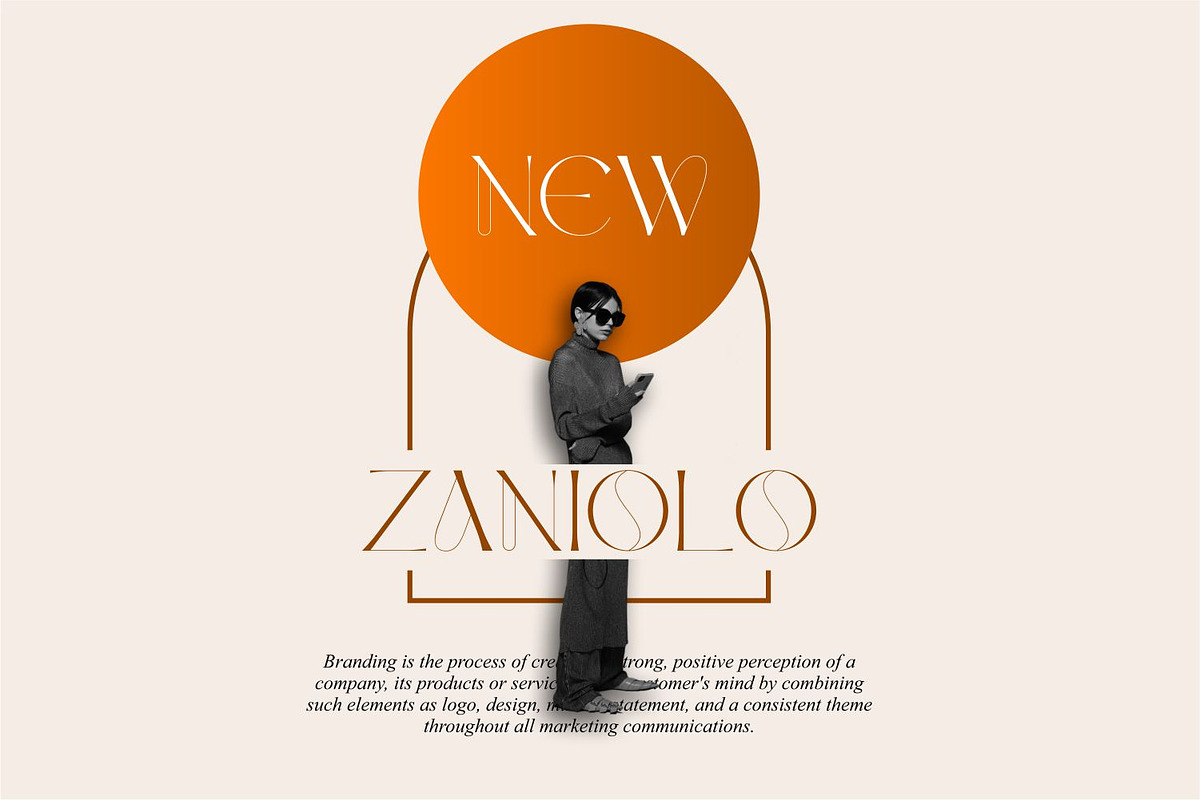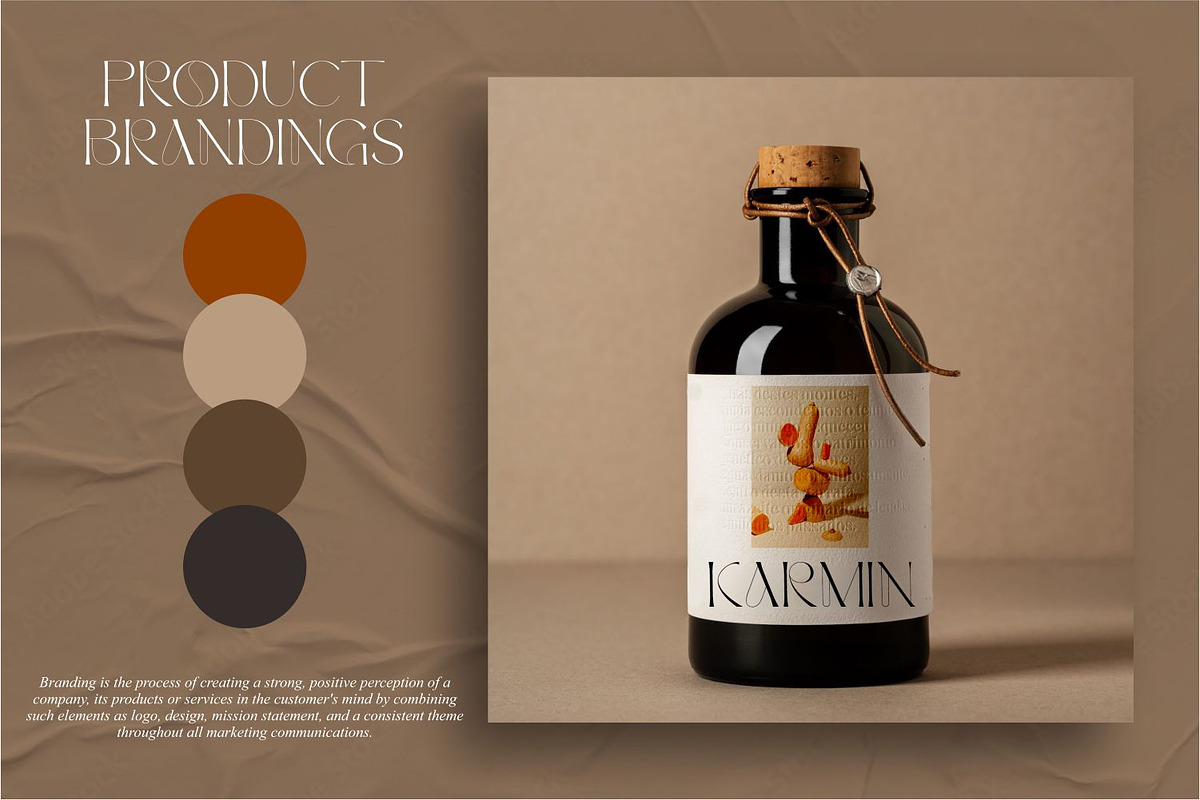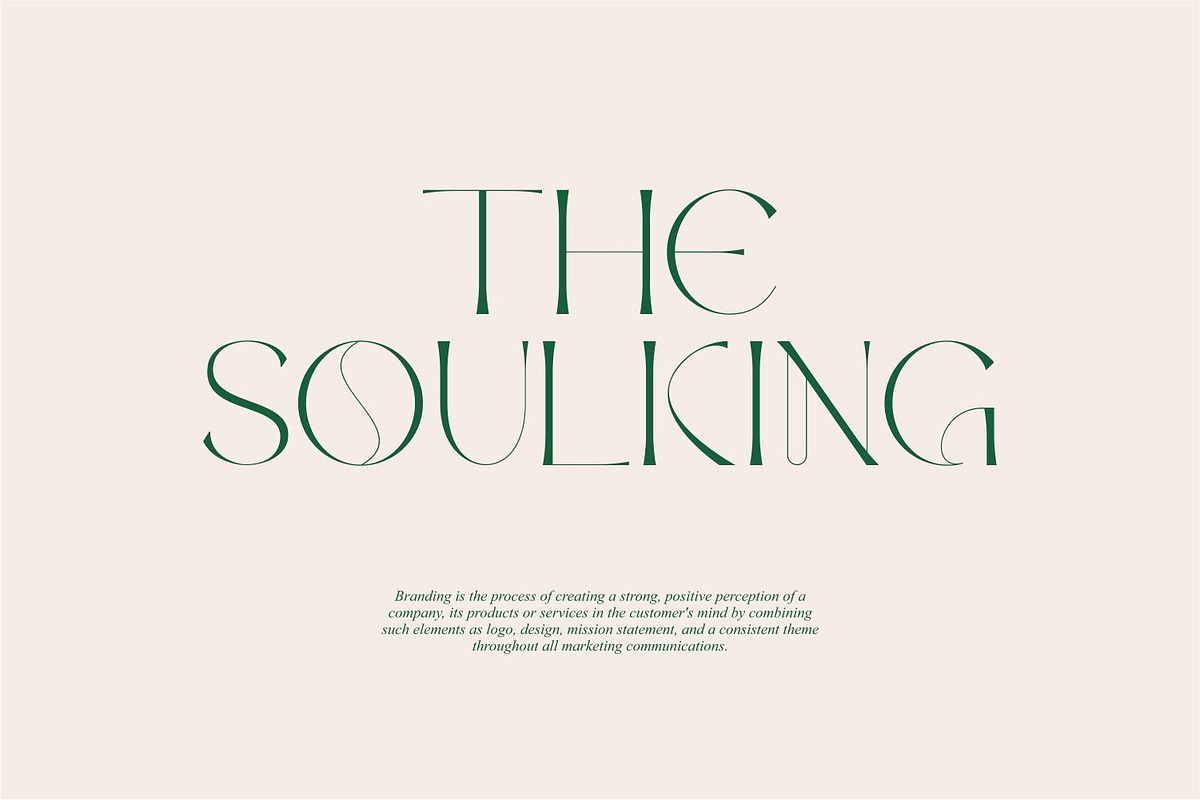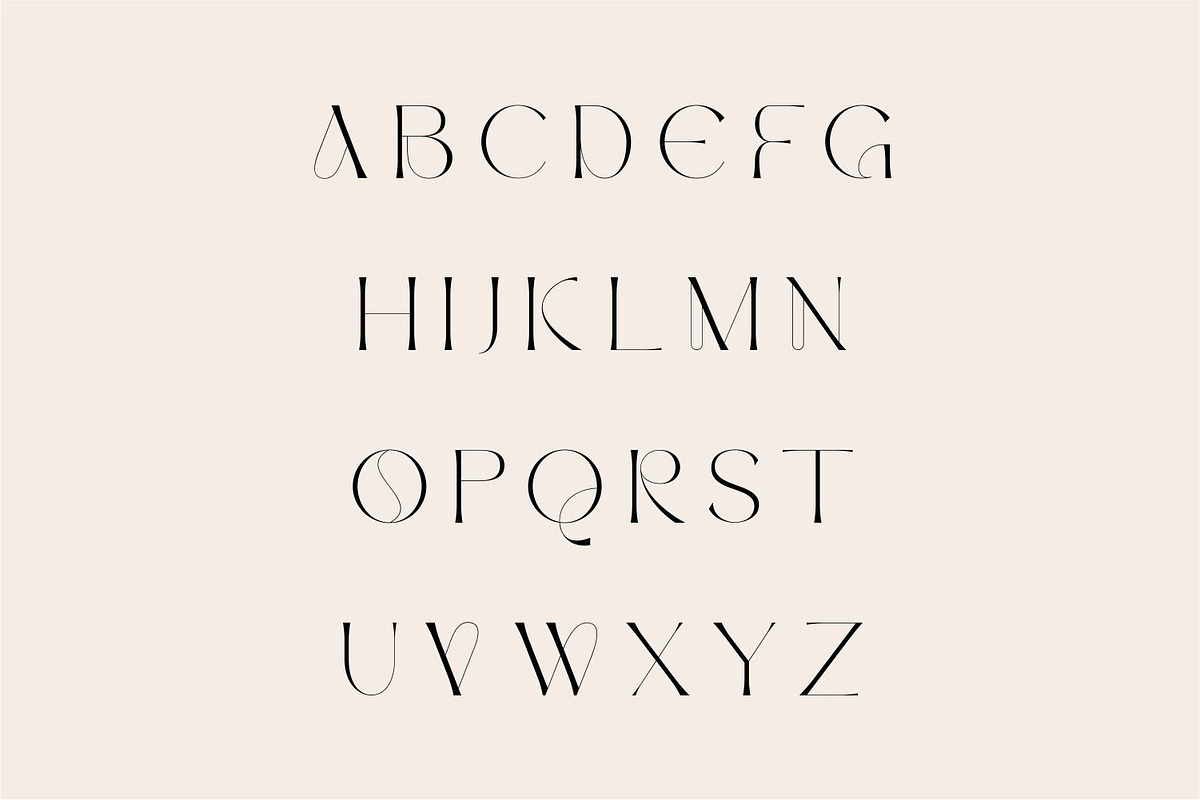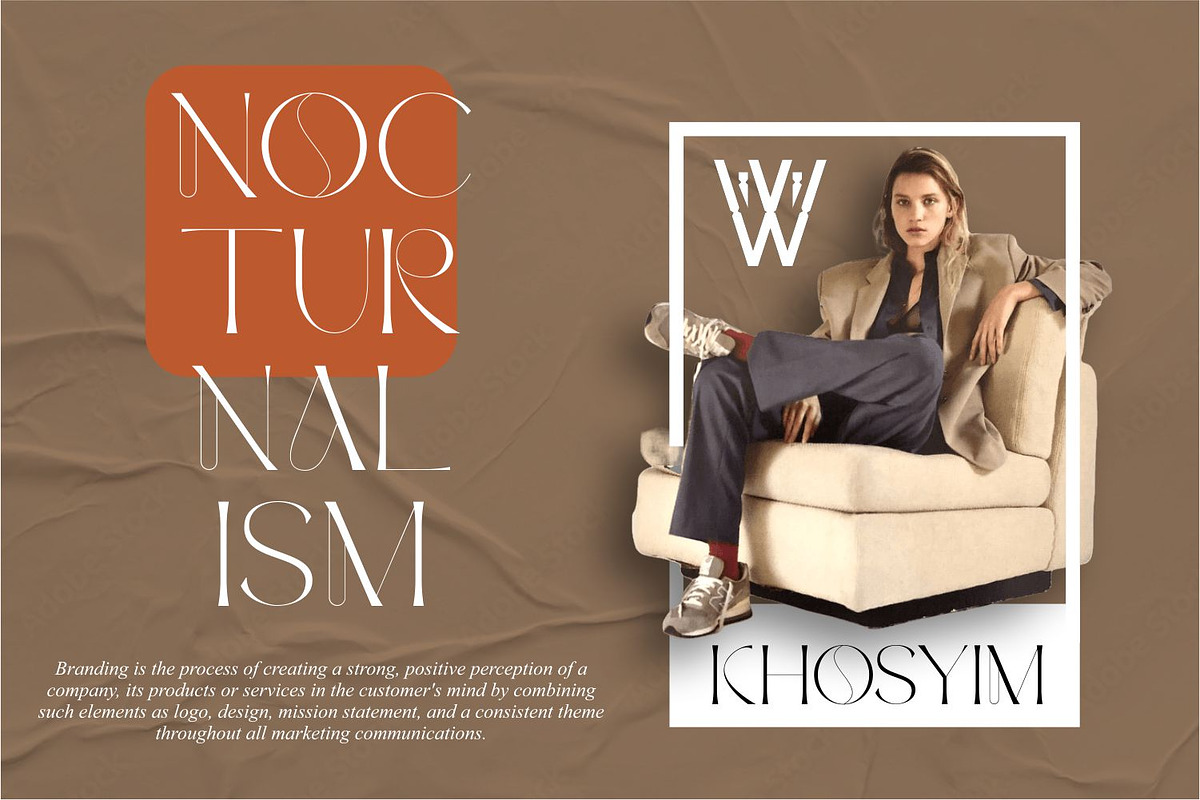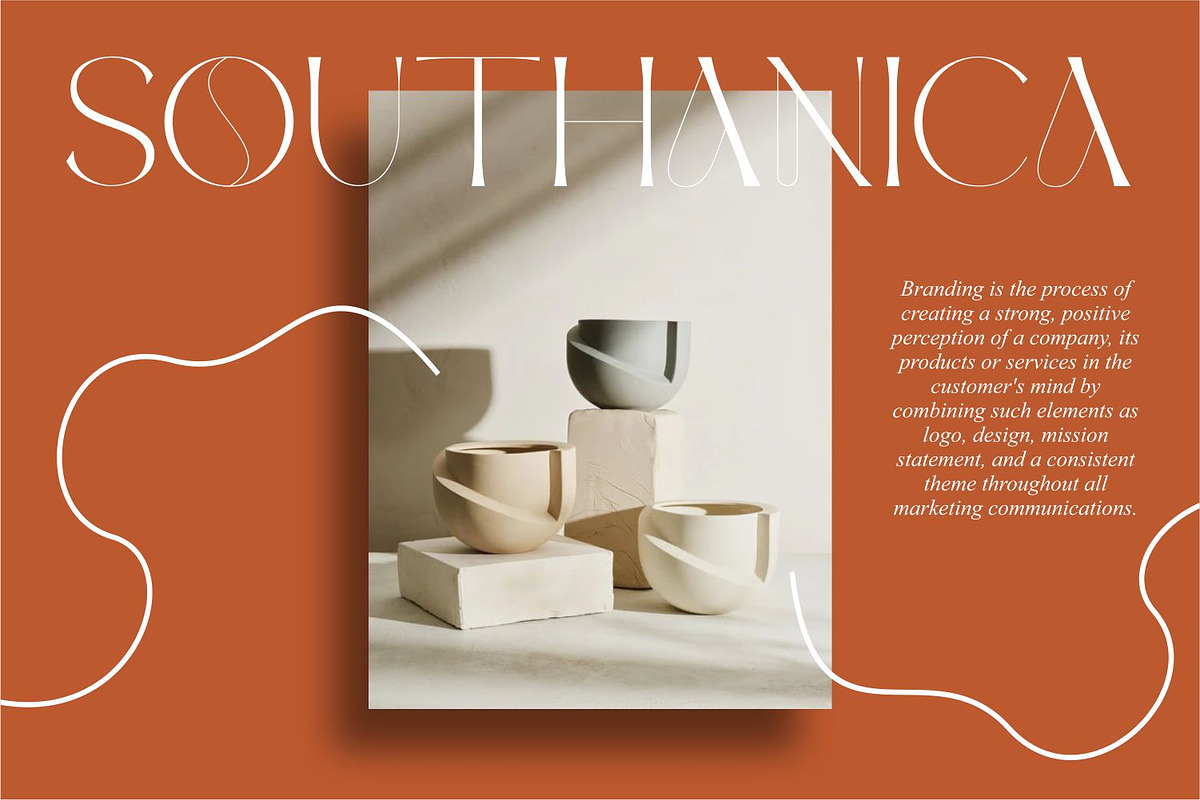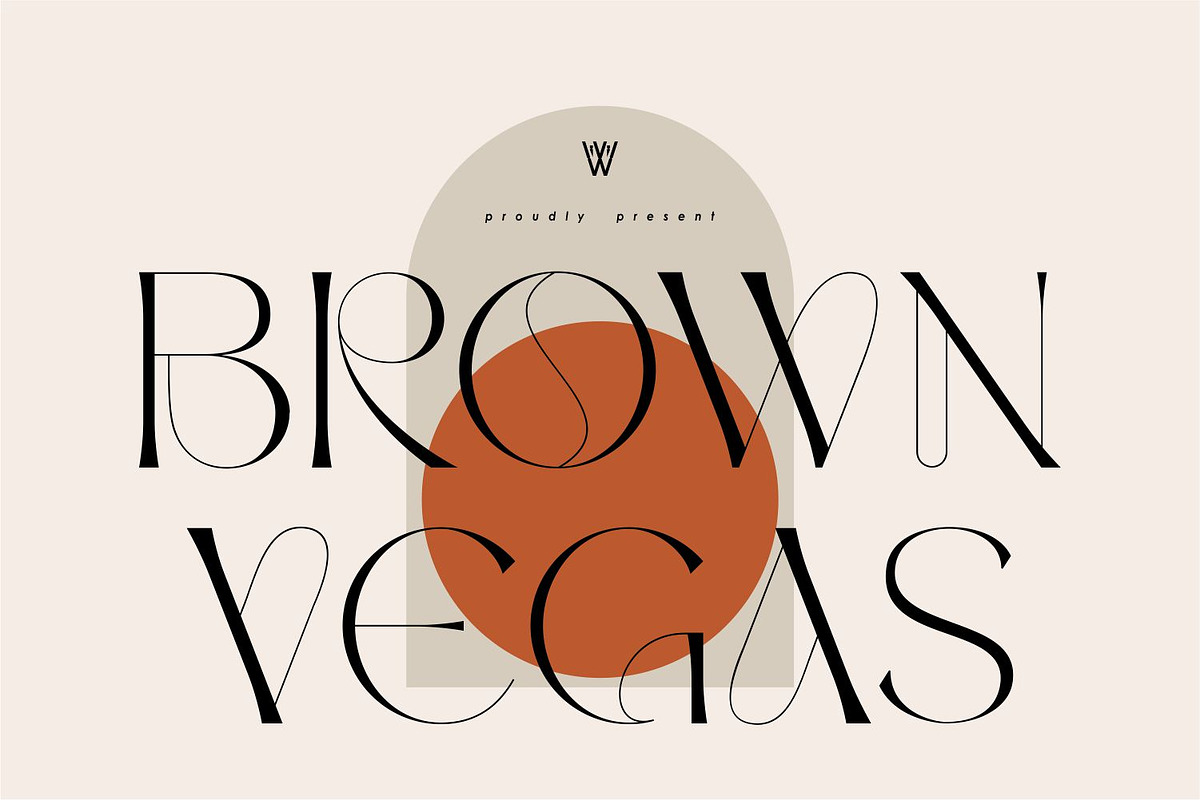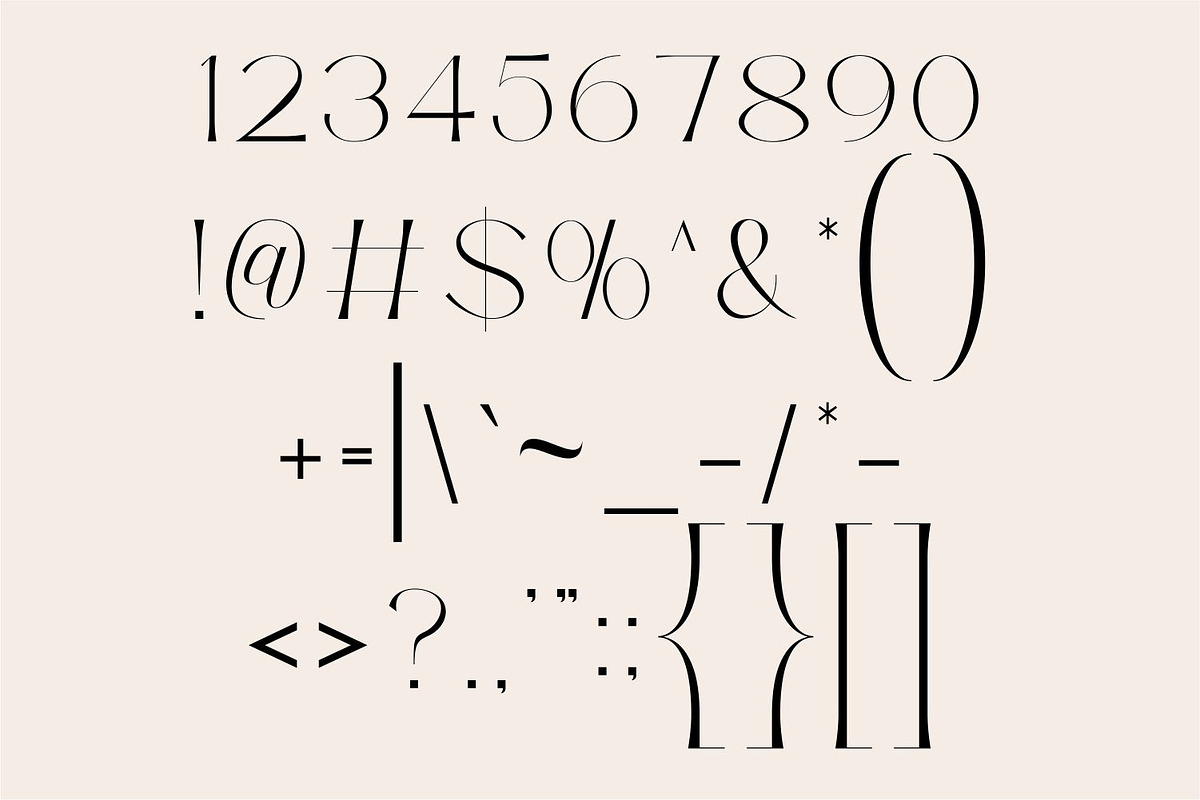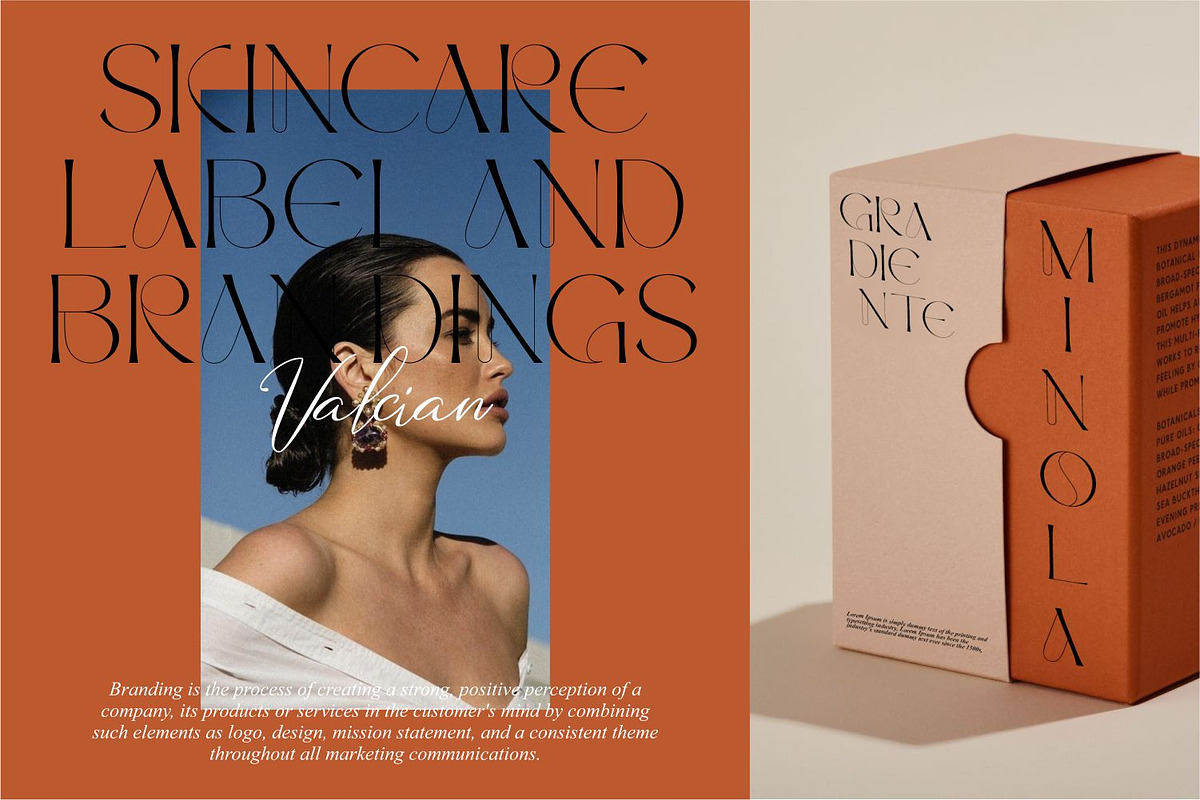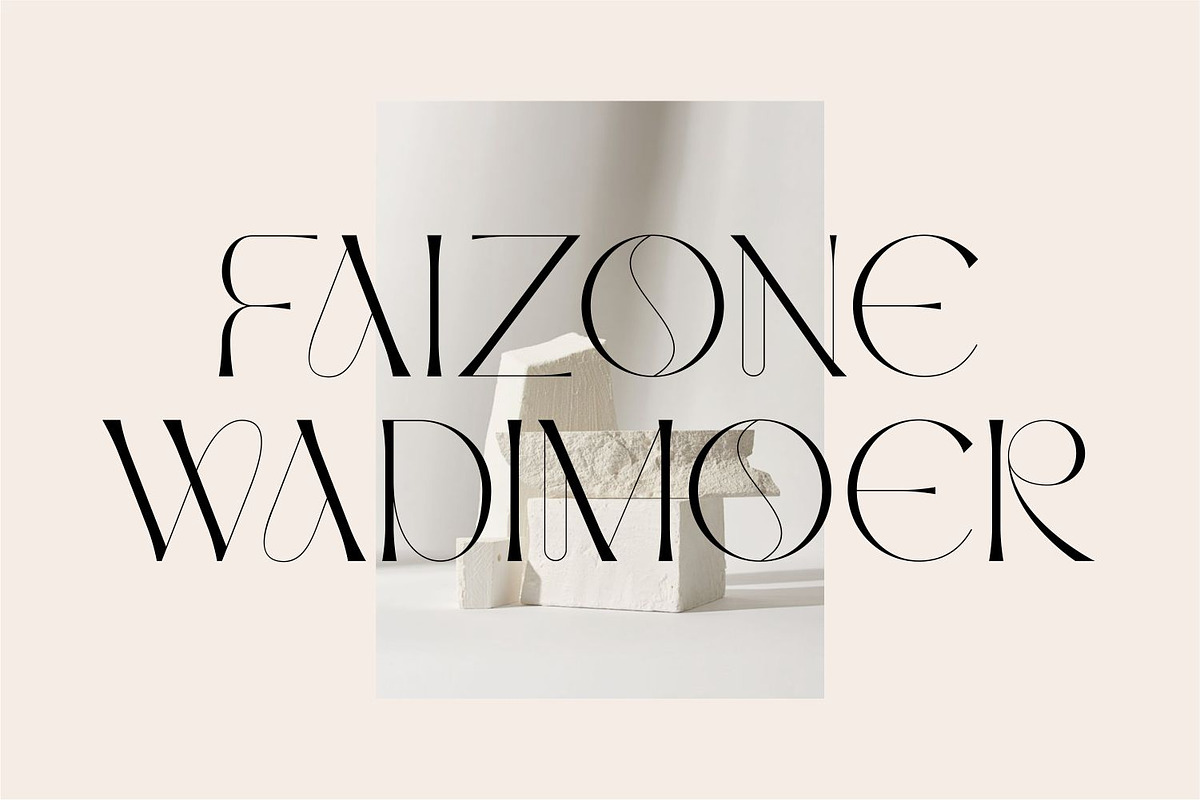
Brown Vegas | Beautifull Sans Serif
The Brown Vegas Font is a beautiful sans-serif typeface that exudes modernity and elegance in every character. With its clean lines and balanced proportions, this font adds a touch of sophistication to any design project. Whether you’re creating branding materials, website headers, or editorial layouts, the Brown Vegas Font brings a sense of refined charm that captivates the viewer. Its versatility makes it suitable for a wide range of applications, ensuring your designs stand out with a touch of contemporary beauty.